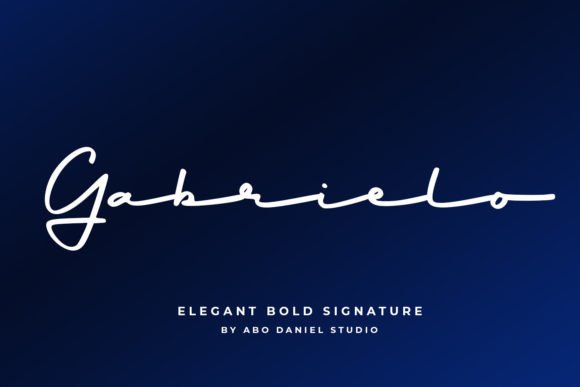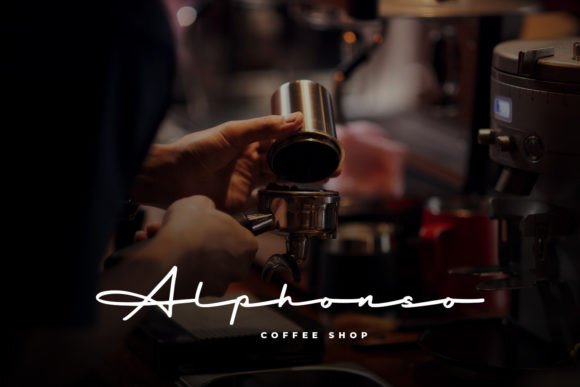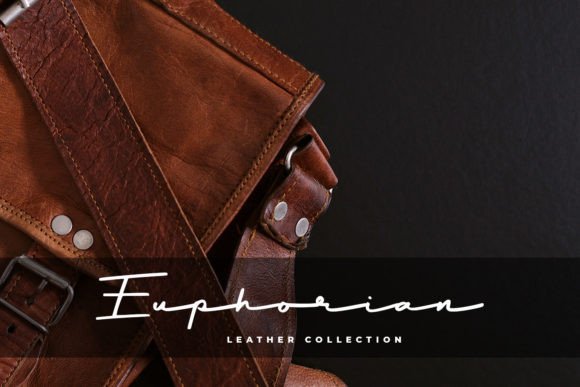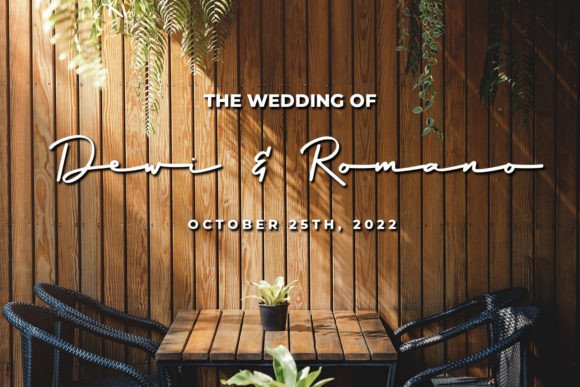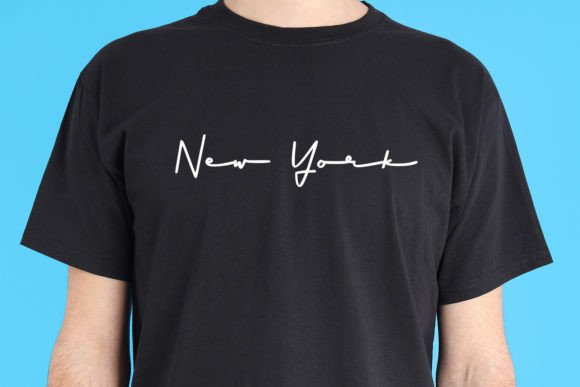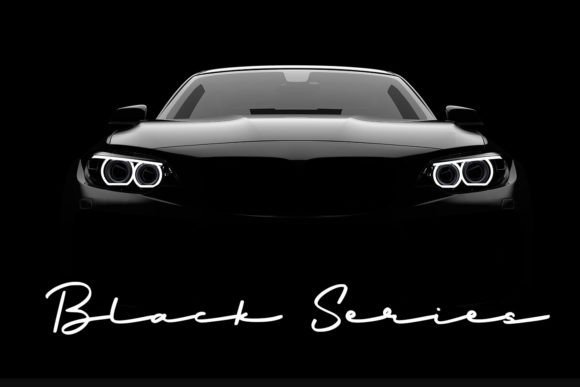
Gabrielo Font
About Gabrielo Font
Gabrielo– elegant bold signature font –
Gabrielo is great for branding, packaging, wedding invitation, logos, t-shirt designs, tote bag designs, cards, banners, social media, and more.